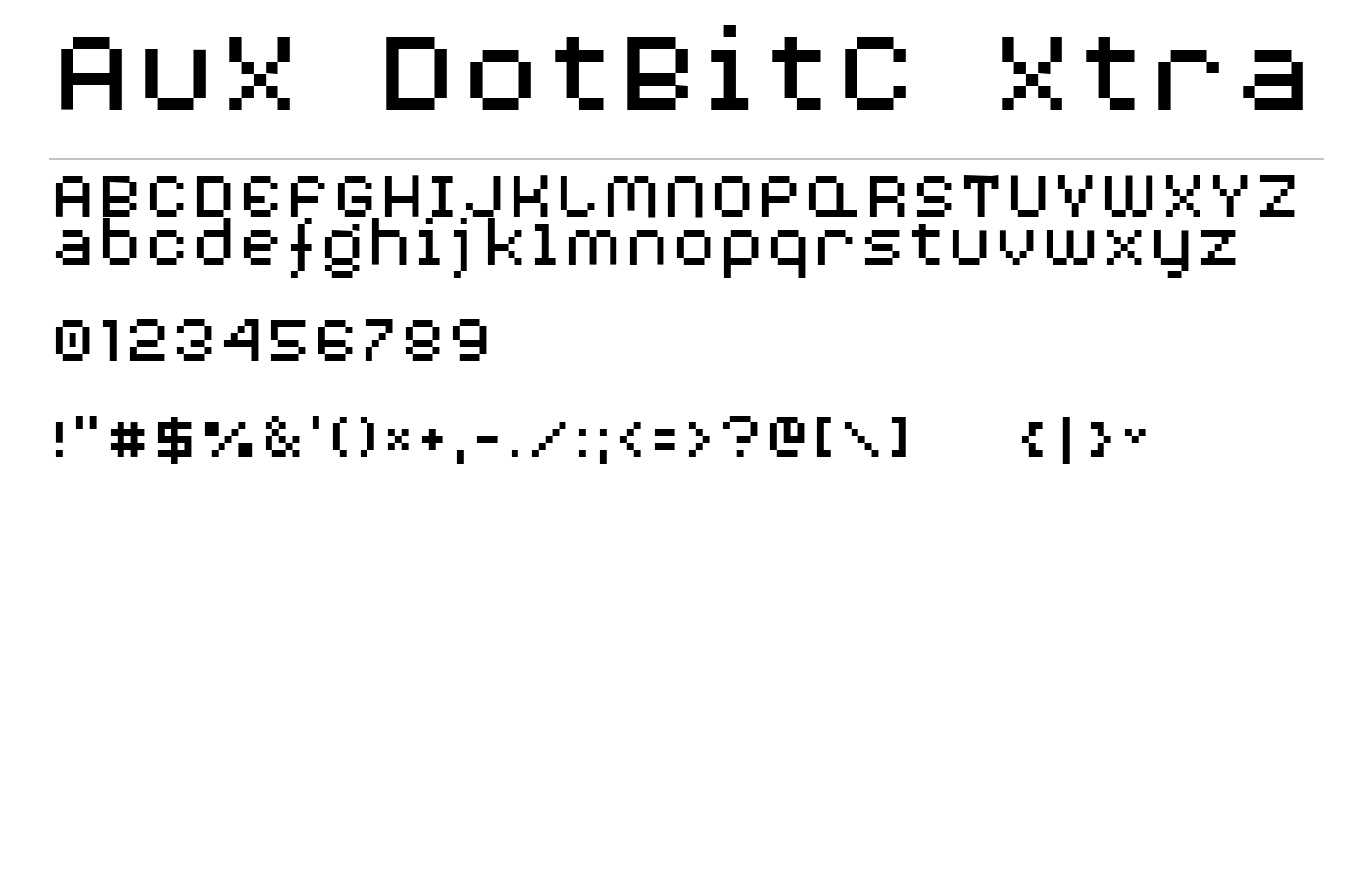
AuX DotBitC Xtra is a pixelated sans serif font with a bold, blocky style that evokes digital and retro video game aesthetics. Its uniform stroke weight and monospaced, square-shaped characters give it a technical, futuristic feel perfect for tech branding, games, and digital interfaces. This font works best in headlines, logos, and displays where a unique, pixel-art vibe adds personality and clarity.
AuX DotBitC Xtra Font
About AuX DotBitC Xtra Font
| Font family | AuX DotBitC Xtra Font |
| Languages supported | Latin, Cyrillic |
| Designer | Alexey Kolpikov |